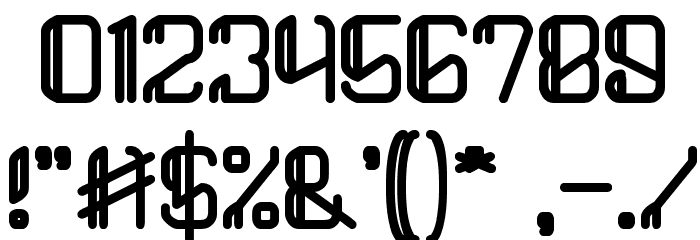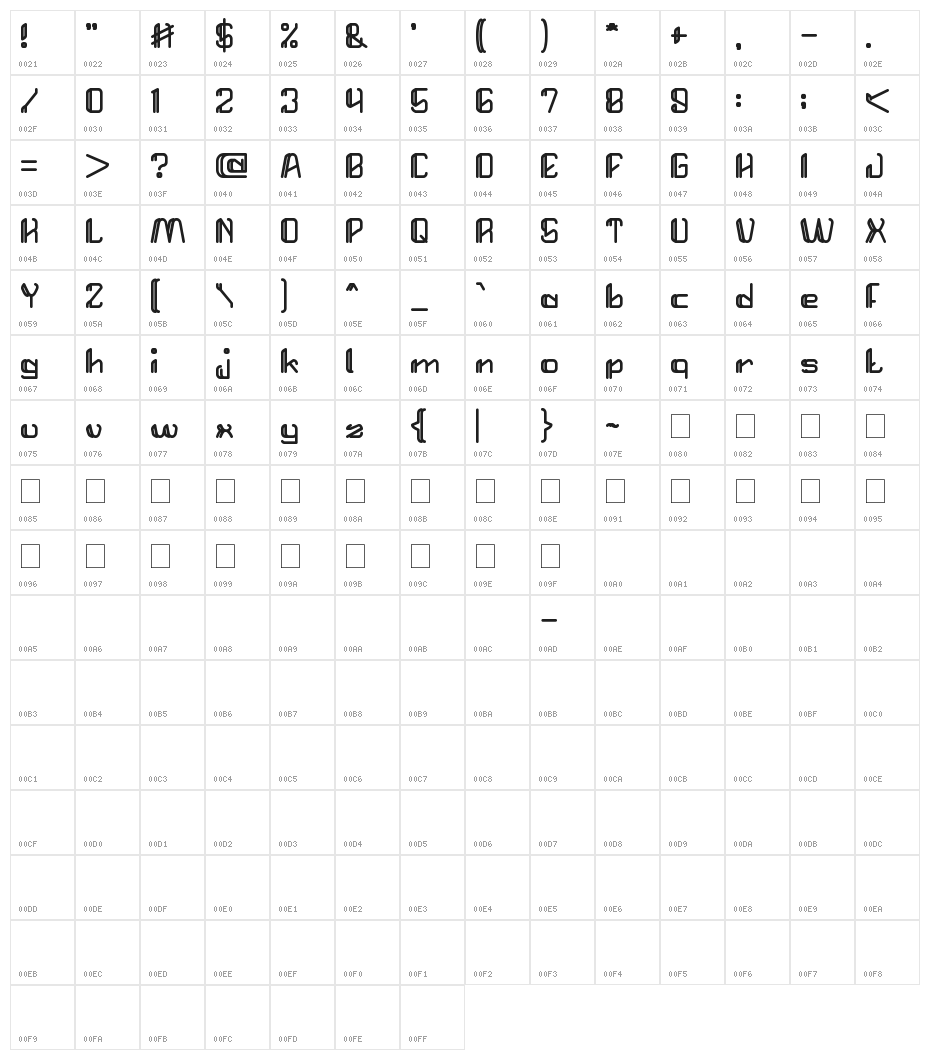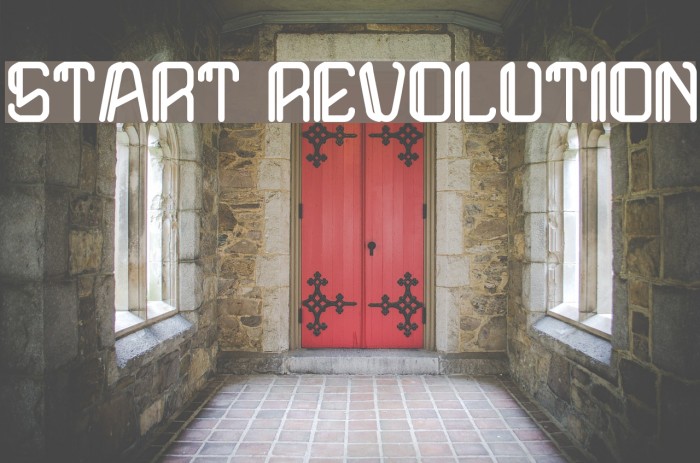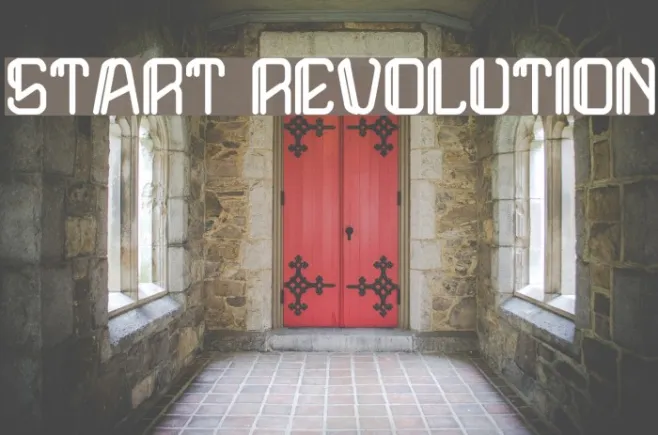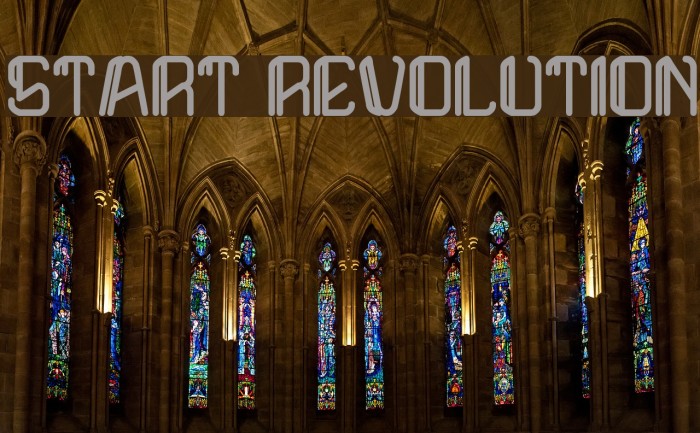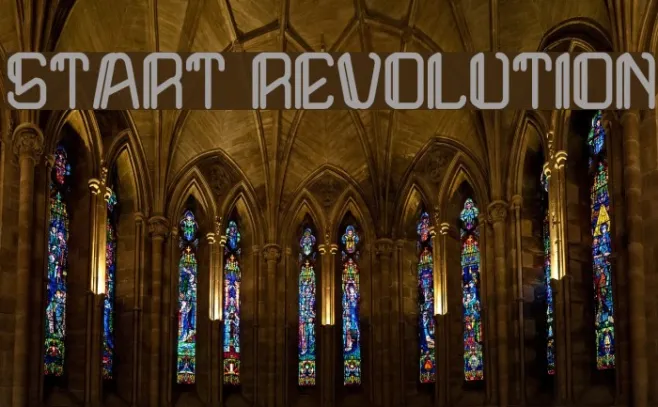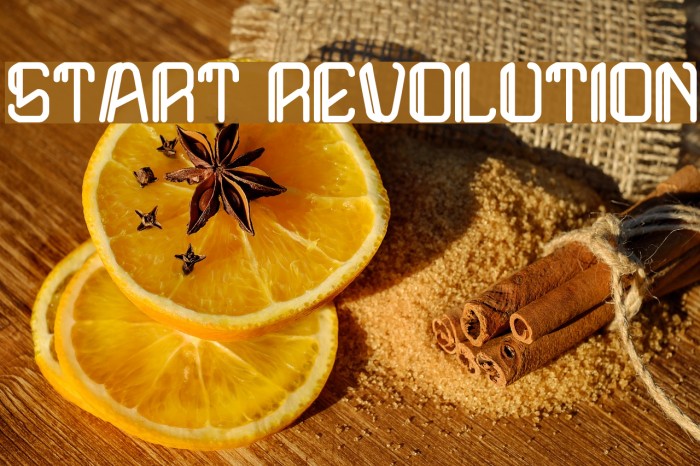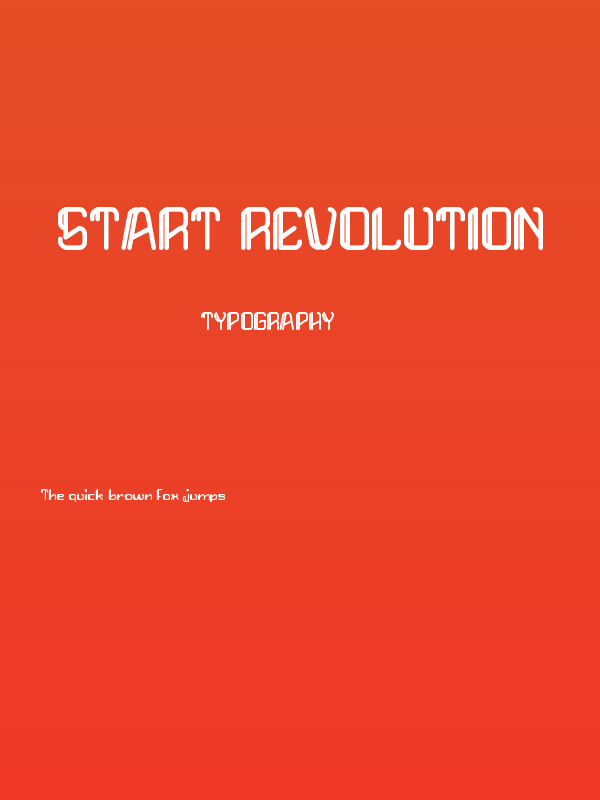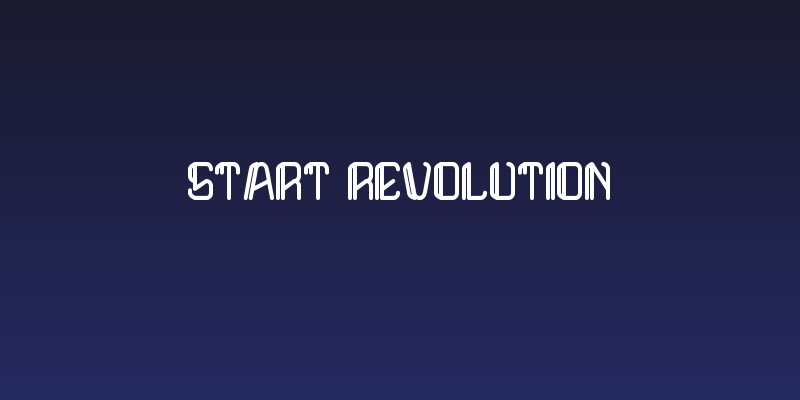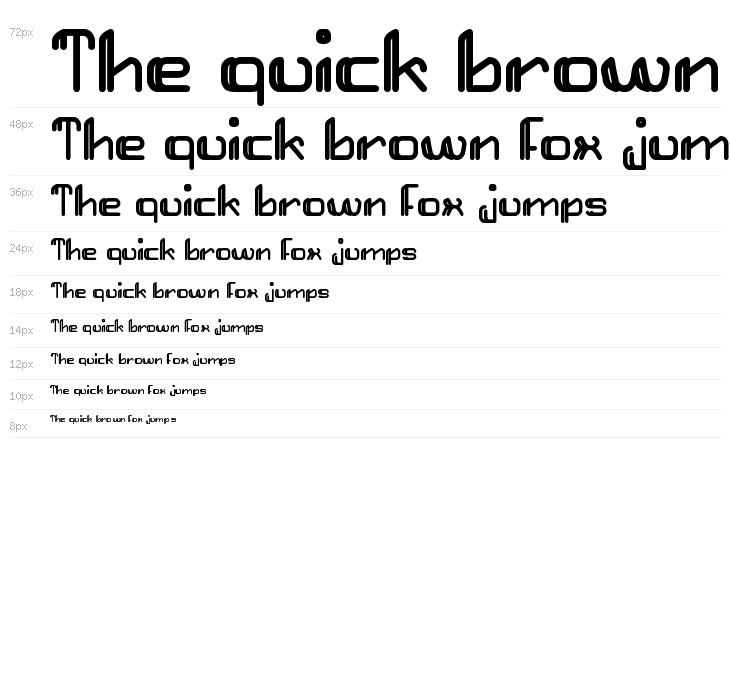
START REVOLUTION Font
START REVOLUTION Description
This font features a modern, geometric design with rounded edges and a consistent stroke width. The characters are constructed with a tubular appearance, giving them a futuristic and digital feel. The uppercase letters are bold and assertive, while the lowercase letters maintain a similar style with slight variations in height and width. The numerals are clear and distinct, matching the overall aesthetic of the alphabet. Special characters are included, maintaining the same geometric style, making this font versatile for various applications.
| Proposed Projects | Ideal for tech-related branding, digital interfaces, futuristic posters, and modern advertising campaigns. |